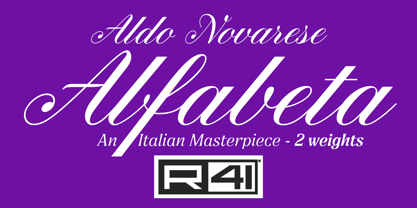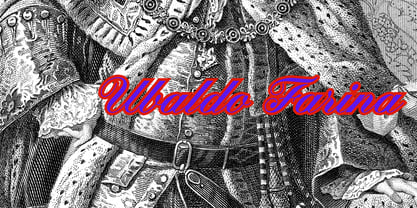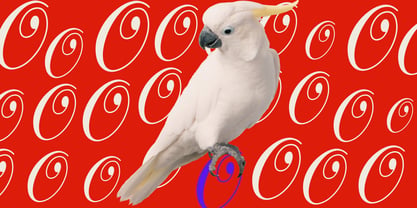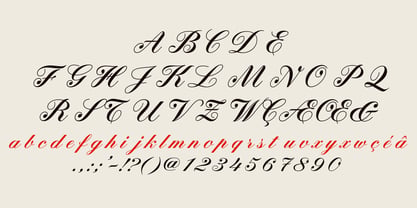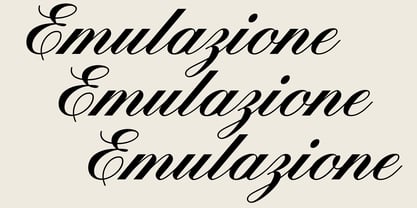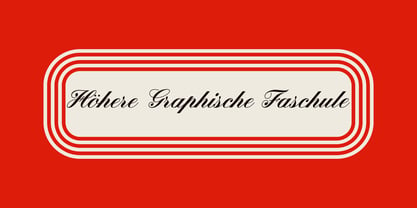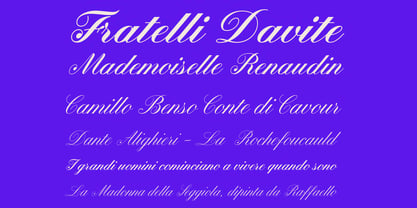
R41 Alfabeta
by Reber R41
The R41 Alfabeta Font Family was designed by Cosimo Lorenzo Pancini and published by Reber R41. R41 Alfabeta contains 4 styles and family package options. More about this family
Alfabeta was first designed by Aldo Novarese in 1987 by commission from R41. The original version was for classical Greek writing in an English calligraphic style, a creative example of great artistic value, and it has now been expanded with the help of Florentine foundry Zetafonts with Latin and Cyrillic support in addition to the original Greek, all available in four optical sizes.
About Reber R41
Reber R41 is an Italian company founded in Spresiano, Treviso, in 1960 by Renato Bernardi, inventor of his own method of dry transfer type, and still run by his family. Since 1969, R41 has produced dry-transfer adaptations of iconic designs from Nebiolo Type Foundry, including its most experimental creations designed for the booming Italian advertising industry. Designer Aldo Novarese, who retired from Nebiolo in the early ’70s, worked with Reber R41 for years afterward designing brands, catalogues, advertising and of course…typefaces. Now Reber R41 provides new digitizations of the work of Novarese and Nebiolo of Turin, brought together in a unique collection that preserves the best of historic Italian typography of the twentieth century.